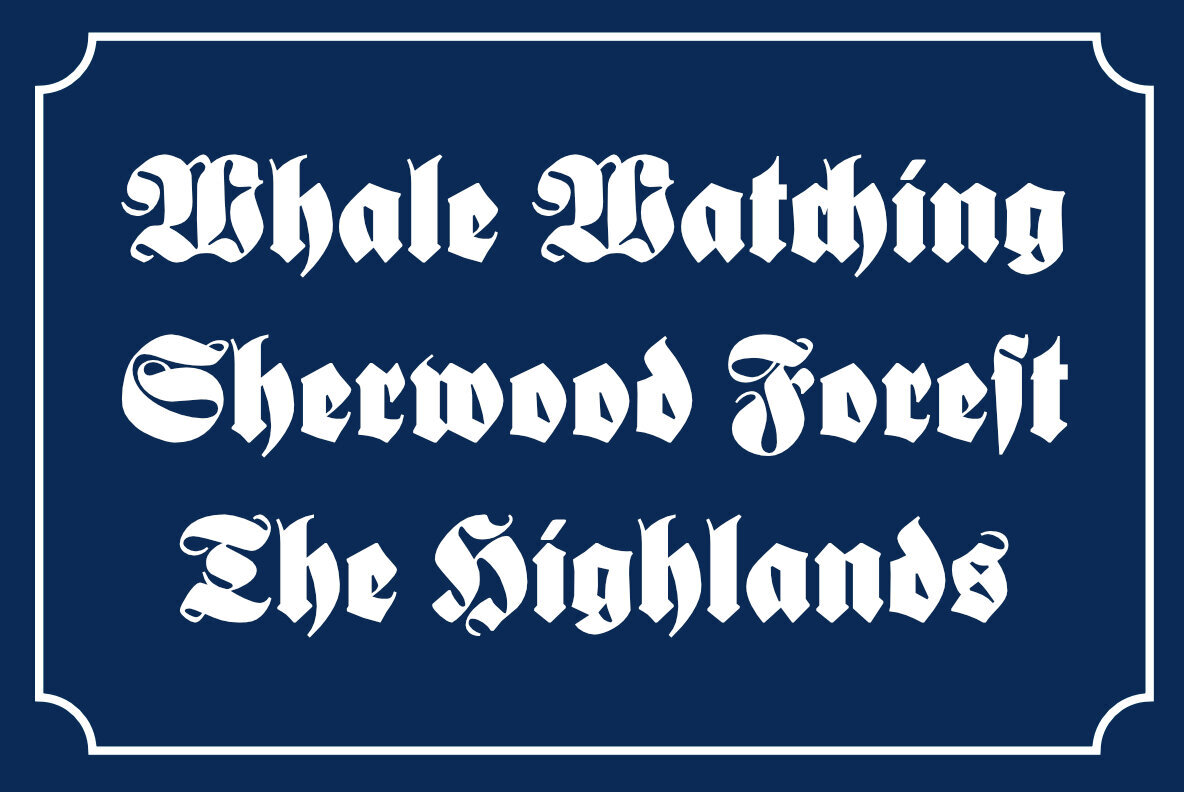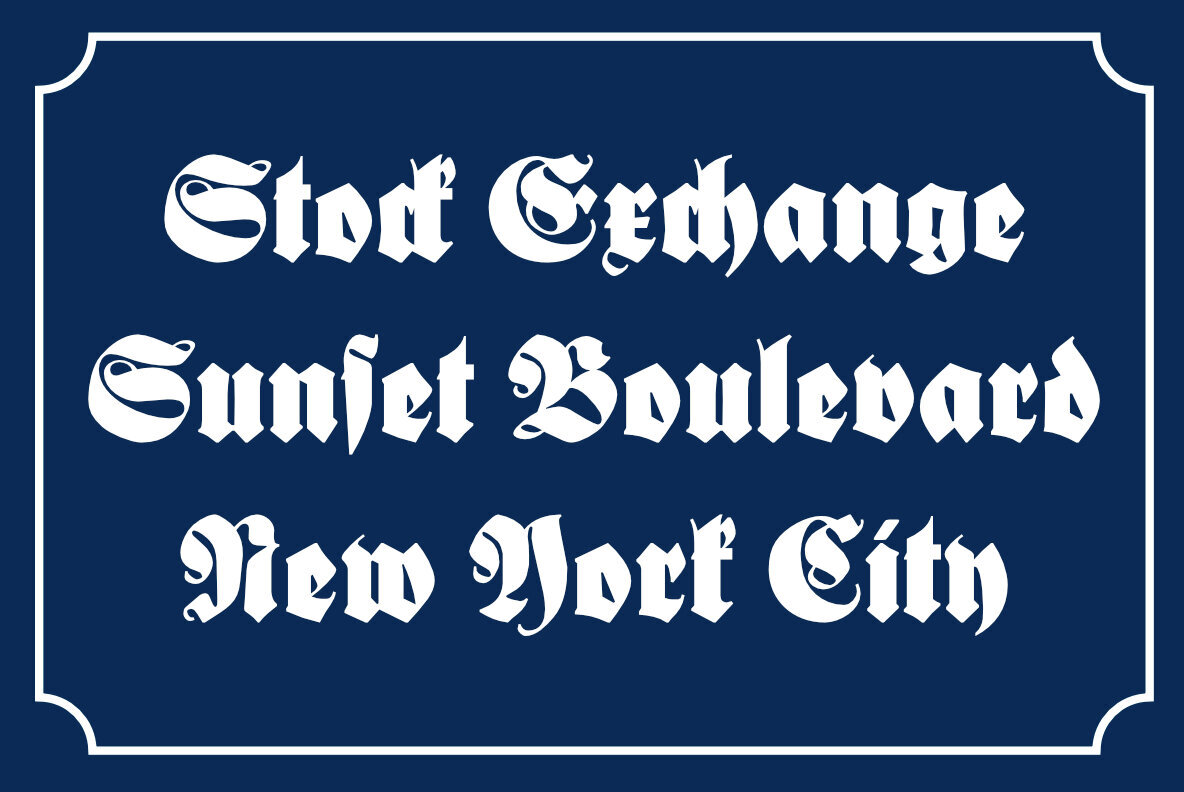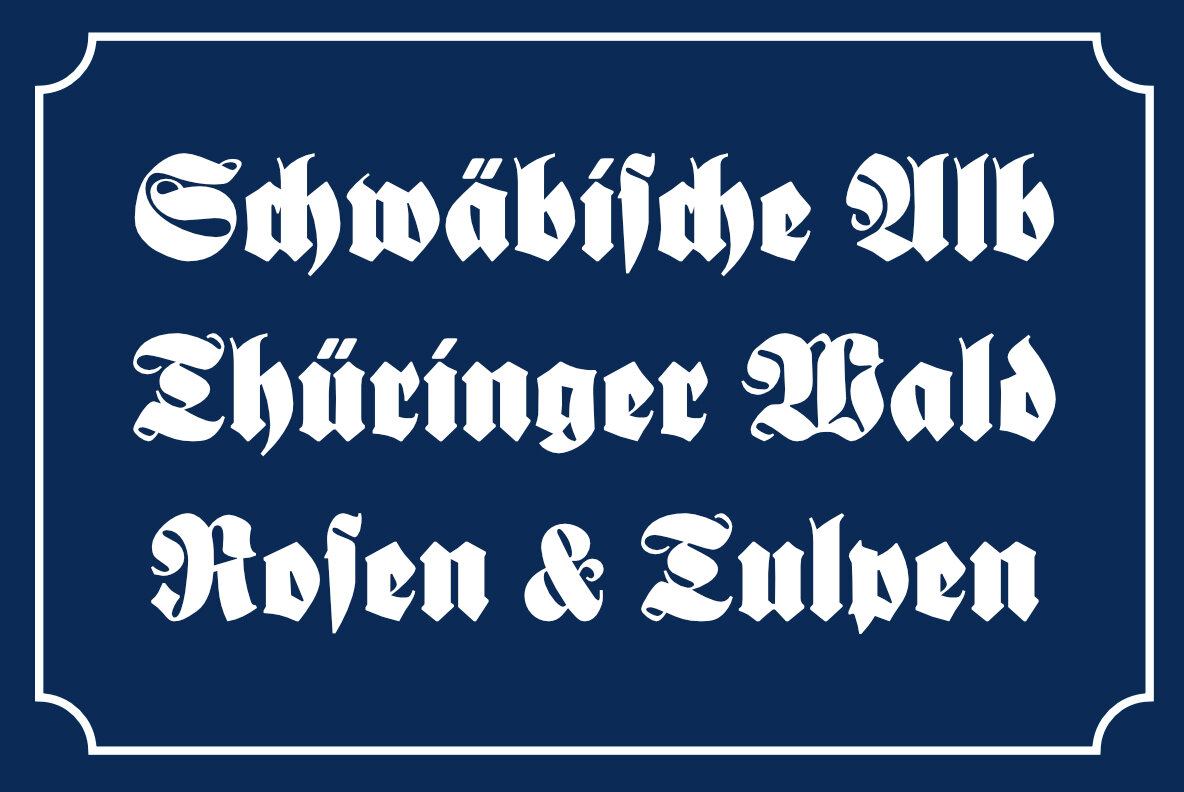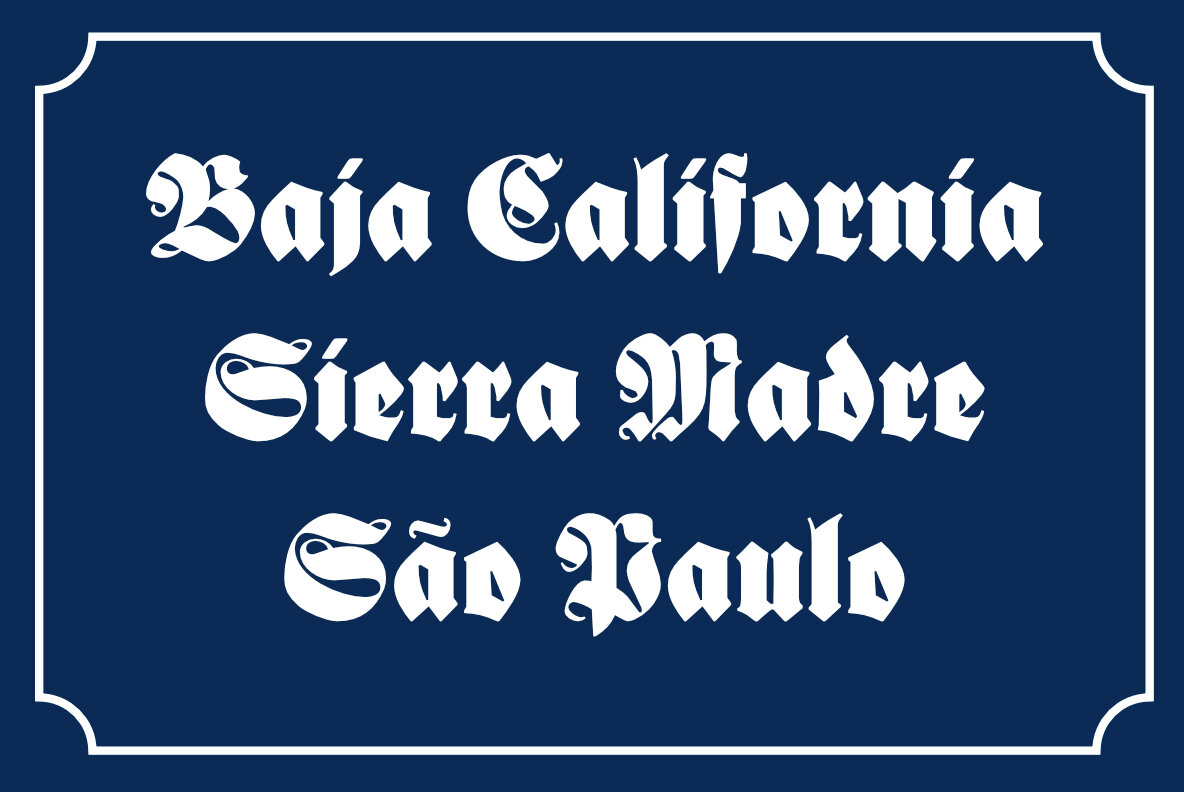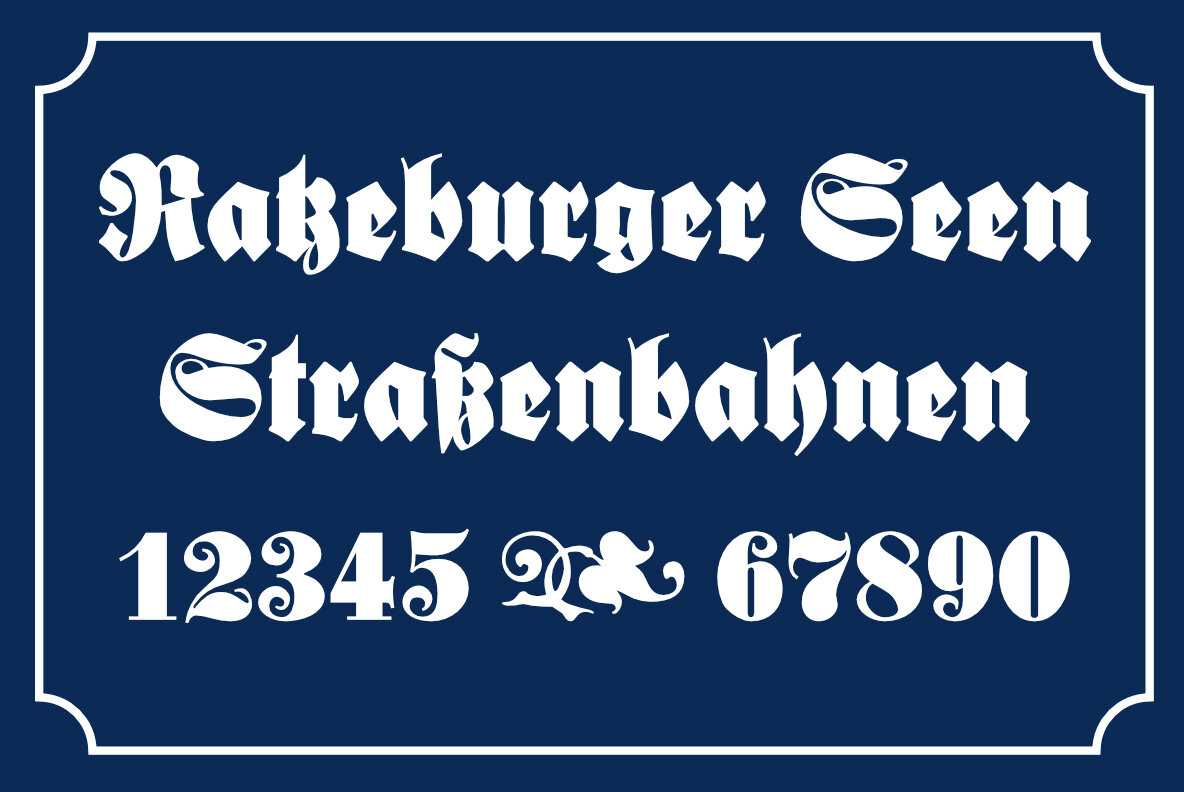
A blackletter font by Rudolf Koch for Klingspor Broth., Frankfurt am Main, released in 1916, which was now redesigned for modern use. It contains the long s and discretionary ligatures. That’s why it is recommended to activate this OT-feature. The long s can be reached either by typing the integral sign [ ∫ ] or by turning the round s into the long s using the OT-feature historical forms.